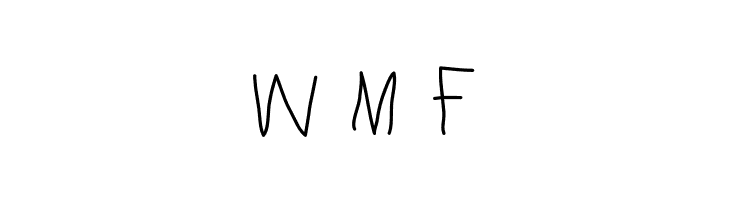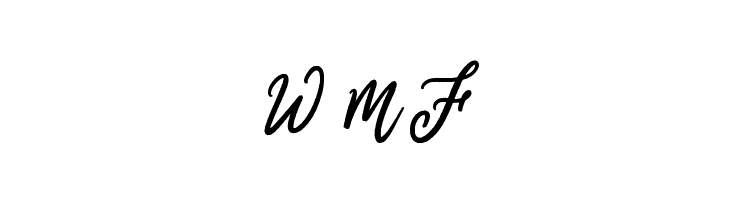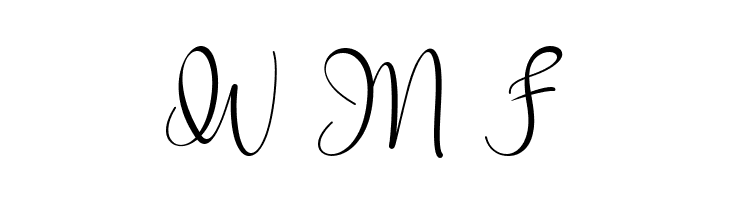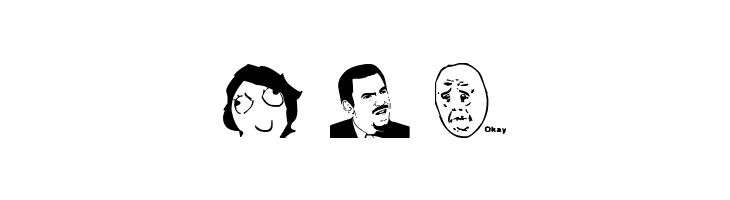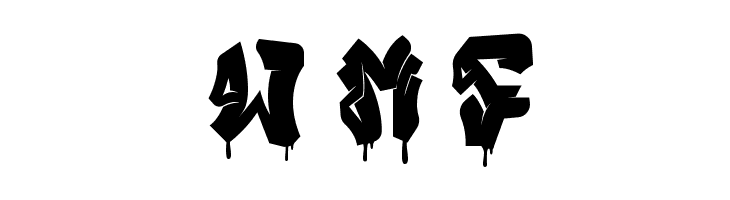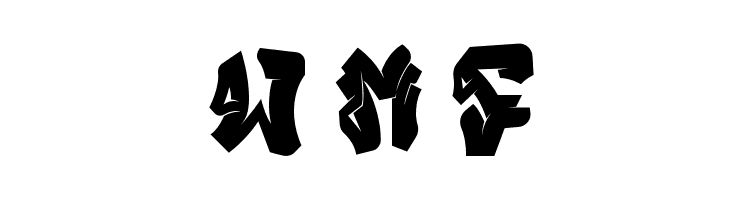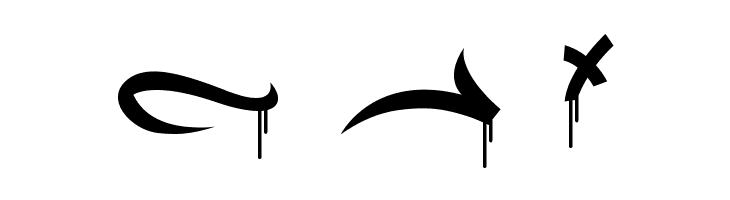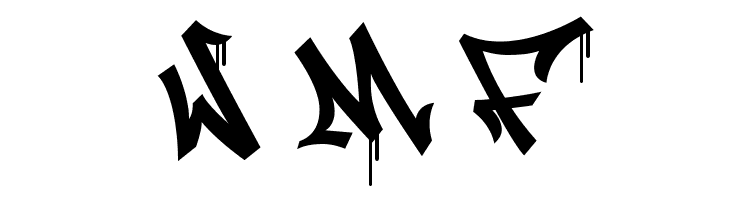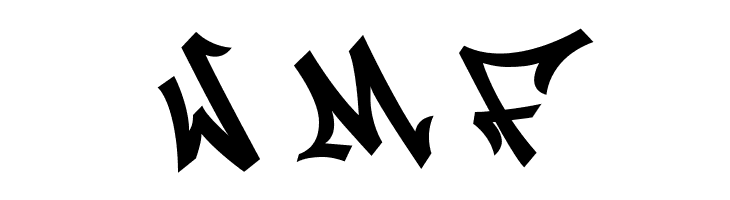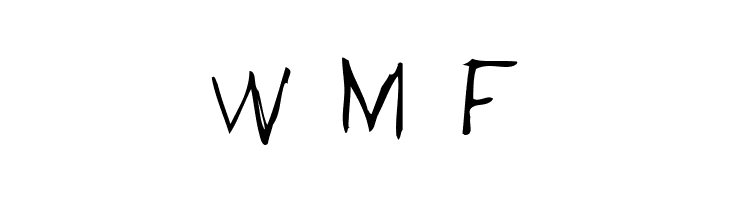
A bold, dripping font with a melting effect, perfect for creative and edgy designs.
A meme-inspired decorative font made from rage comic faces.
A bold, expressive script font with fluid, cursive letterforms.
A bold, distressed font with a vintage, textured appearance.
A playful, heart-embellished font with bold, chunky letters and whimsical charm.
A decorative, cursive script font with a flowing, handwritten style.
A decorative font featuring intricate, tribal-inspired glyphs of animals and mythical creatures.
Expressive, bold handwritten font with energetic strokes.
A jagged, edgy font with sharp, irregular strokes and a hand-drawn feel.
A bold, jagged font with a heavy metal aesthetic and dynamic, aggressive style.
A bold, angular font with a dynamic, forward-leaning style.
A bold, textured font with a vintage, handcrafted feel.
A lively, expressive handwritten font with fluid strokes and dynamic movement.
A whimsical, curly font with playful loops and flourishes.
A fluid and elegant handwritten script font with a dynamic flow.
A whimsical and elegant script font with flowing, interconnected letters.
A graceful and elegant script font with flowing, connected strokes.
A graceful, cursive script font with elegant, flowing letters.
A bold, impactful font with rounded edges and uniform thickness.
A whimsical, hand-lettered script font with decorative swashes.
A modern sans-serif font with geometric shapes and balanced proportions.
A flowing, cursive font with elegant, interconnected strokes.
A bold, distressed font with a vintage, industrial feel.